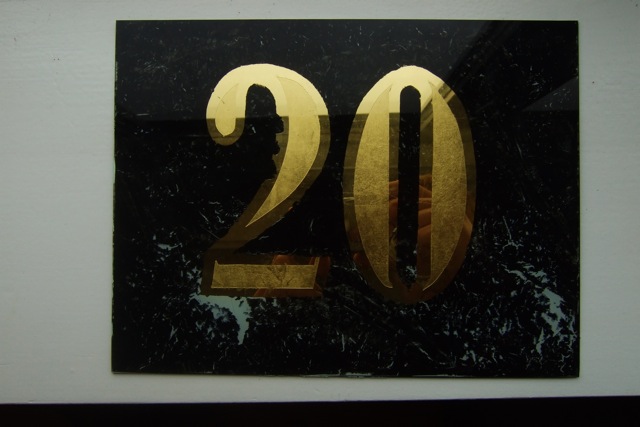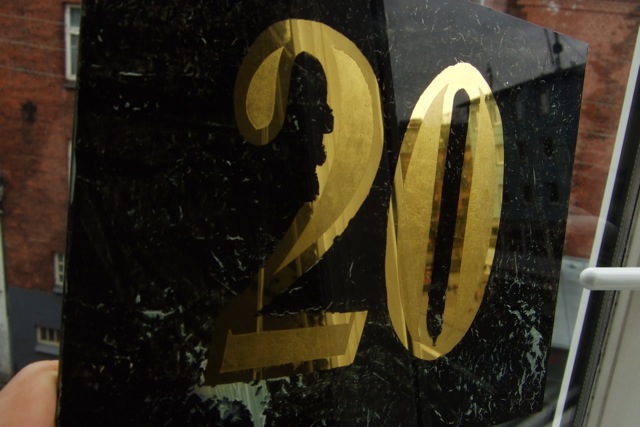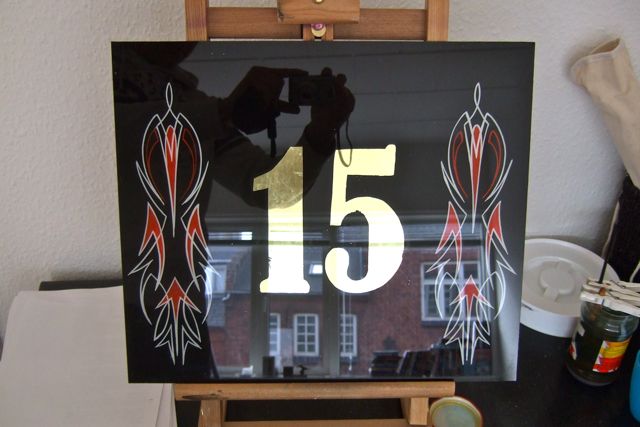
Glass paint
I have been reading about making glass signs with gold leaf for a while and now I think im almost ready to try it out, but I have som questions.
I have bought some yacht varnish to back up the gold. I asked for some black but in the store they told me, that black yacht varnish dont exist? So i bought some transperent instead and mixed it up color powder? I dont know the english word for it?
When I see this video ( http://www.youtube.com/watch?v=5TSsDy5Bltk ) He use black yacht varnish or what is it?
And when I have backed up the gold leaf design I want to make some shades/outlines or something else. Can I use 1shot lettering paint or what would you suggest?
Lars,
You found my video ! In the video I am using Esoteric Sign supply Back up black but that's no longer available. I would try an air dry screen printing black ( Oil based) with some one shot hardener.
I would say you can use anything but water based paint.
Re: Glass paint
I wouldn't say you can really use most anything. But would agree that the screen ink is probably the best. You have to have a gold back-up that's reasonably tough, so it doesn't break down when removing the excess gold. I've never used OneShot to back-up gold....I don't think it would be tough enough. If you can't locate the screen ink, I'd do some test prior to using a substitute.
Okay, you can use Tse Tse Fly!
Do not try to backup with enamel like One Shot even with hardener it does not produce a hard edge for cleanup. The real issue is the hard edge. A short oil resin varnish like Quick Rubbing will work by itself or similar Japan varnishes (Florence Japan, Venice Japan, etc.) or Japan paints. The One Shot poster paints can be used but they must be completely sealed. The screen inks also have this property of a hard edge so that they will not bleed out when printed. Most of us use One Shot enamels on glass by itself for outlines and shades as well as secondary copy. There can be issues with durability of those as well without being sealed however.
Letterhead Sign Supply does have the backup black that is much like Glawson's and I have had great results with it.
I will try do get some oil based screen printing varnish and try it out.
Now I have done my first "glas sign" with some errors I can learn of.
The size I guess was to strong, maybe too much gelatine. I used 1x1cm gelatine (for cooking) for 0,25 litre water.
It was really difficult to remove the leaf around the numbers.
For the matte finish inside the numbers I used 1shot fast gold size, I think that is okay.
My biggest problem is the varnish. I use some yacht varnish, its clear so its a really difficult to see what im doing. I have been searching on the internet to find something about japan varnish but its like it dosent exist? I cant find anything about it.
And the screen ink companies will not sell me theire products because its for private use. They only sell for companies.
A last thing is, I did the marbling with water based colors and it cracks on the backside. Is water colors not suiteble for glass?
I found some black varnish for kichten tabels I maybe should try? And hope it will make the edge hard enough.
Another thing is, I have to pratice way more to be better with that lettering brush ;)
Hey! Looks pretty darn good for being your first try! Better than my first shot!
If you have trouble removing the leaf try dipping your moistened cotton wad in fine powdered chalk or powdered rotten stone and rub it off with that.
I have problems finding equivalent chemicals over here in Japan too. They have screen ink in little tubes at art supplies over here. Or you might look for a small screen printing set at a hobby shop, too. Folks make postcards with them over here...
I can't work with just screen ink alone so I add in some resin(local to Japan) and quick drying medium(from art supply). This allows you to paint long smooth lines. Substituting boiled linseed oil for the quick drying flows even better but dries slower. The stuff I get over here is probably way different from what you would get in Europe or the US so EXPERIMENTATION is really important.
I dont want to start another topic for this little question but I have som problems with really small curves for flowers and ornaments ect.
What brushes do you guys and girls use so the lines remain with a nice flow? I have been trying with my lettering quills and scroll brushes (wizard vortex and the virus) and it dont really work for me. Is the hair of the brushes too long? Should they be shorter?